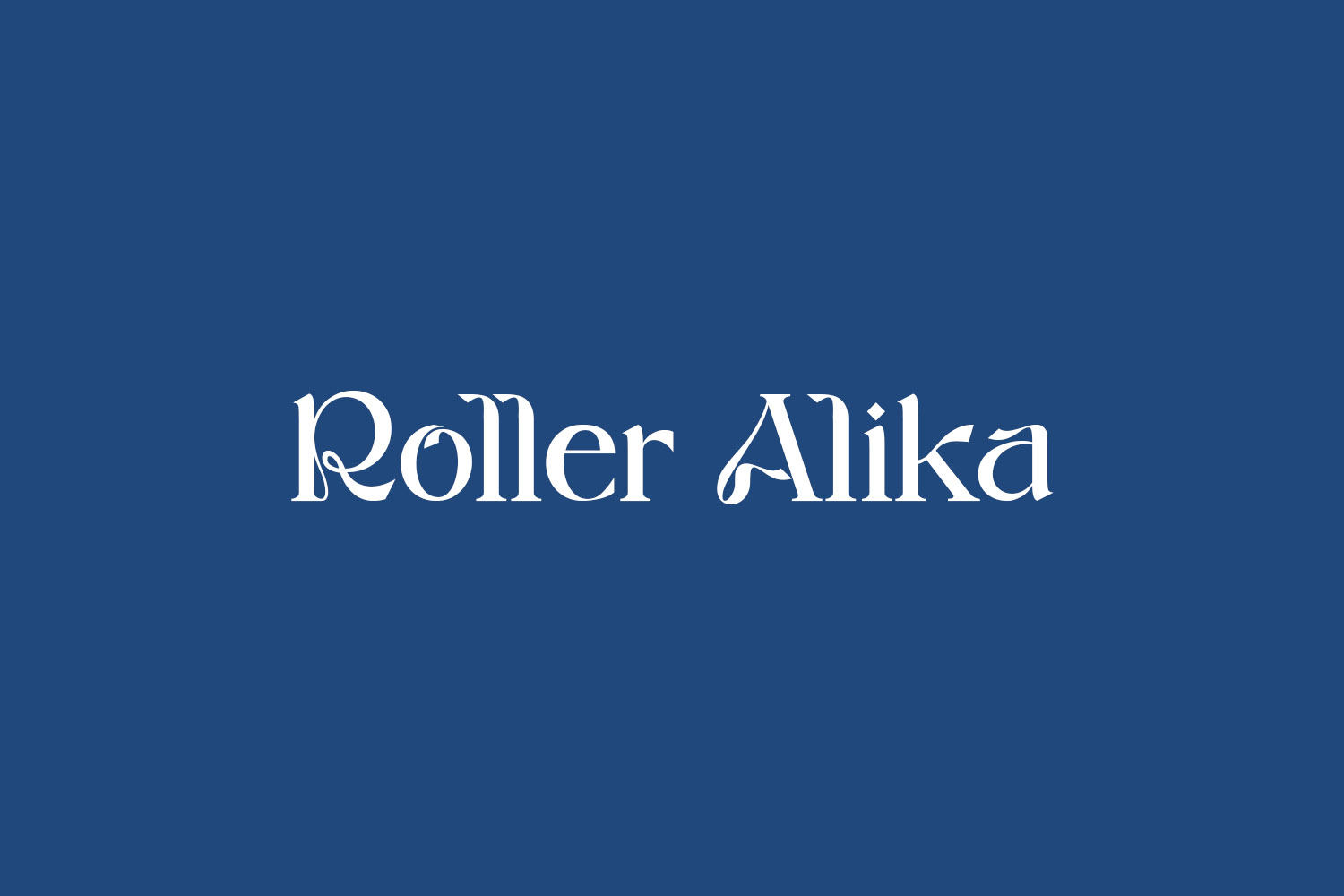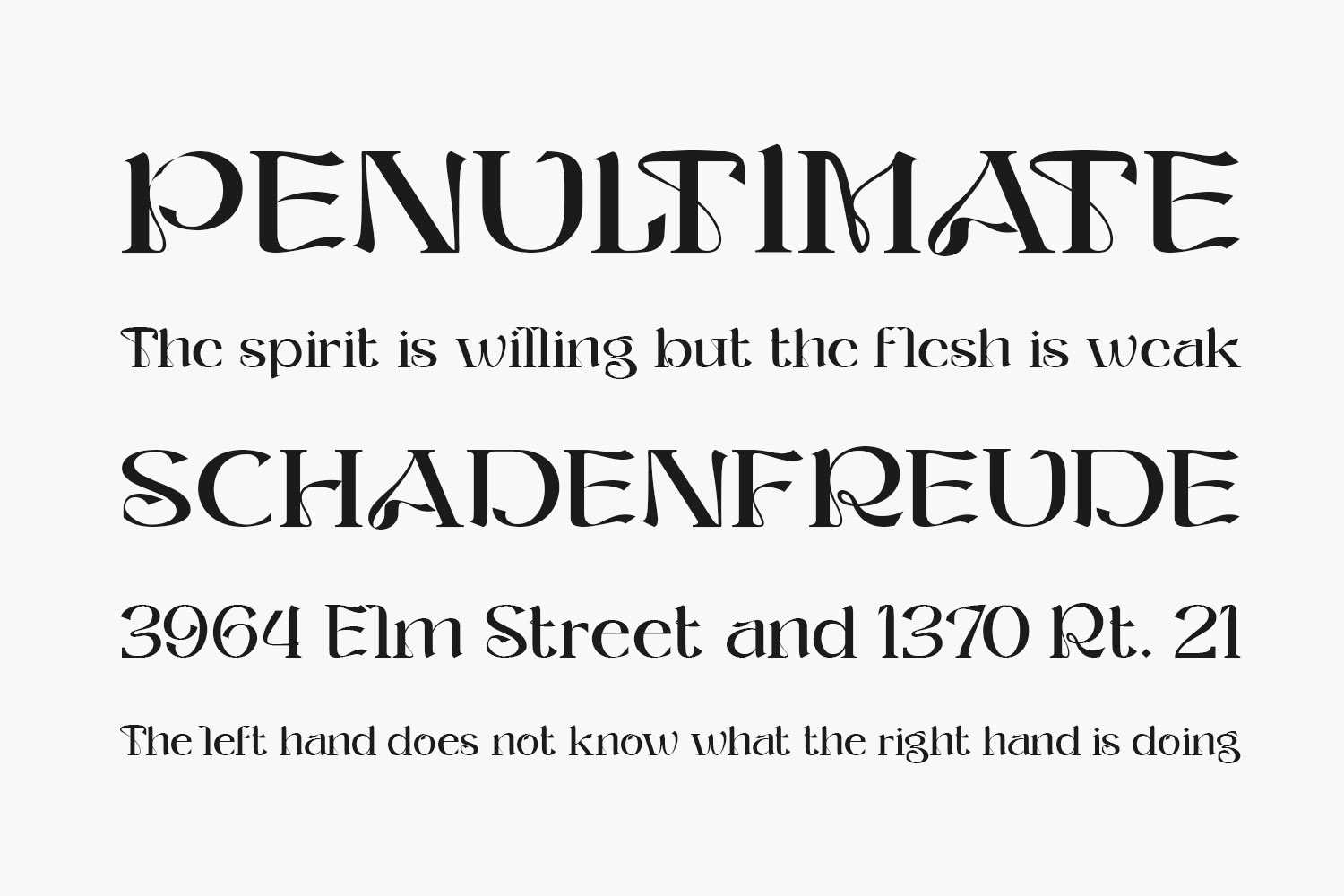
Roller Alika Free Font Family is a modern and stylish serif font. It has a classy and elegant look that can be used for logos, branding, invitations, stationery, wedding designs, social media posts, and much more. Roller Alika Free Font Family was designed by Alit Design and is free for personal use only. Please purchase the full version for commercial use.